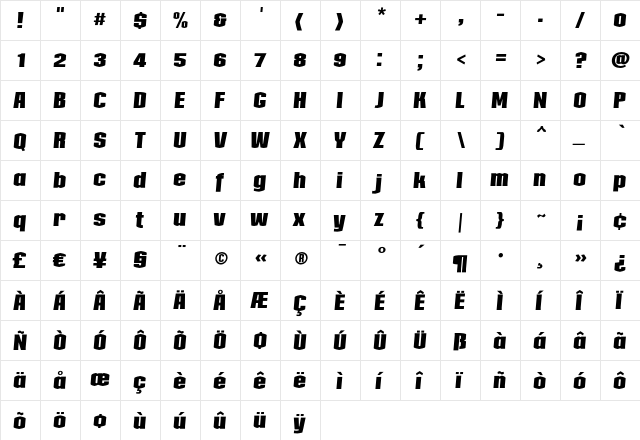
Collos BoldItalic
Design Context for Collos Typeface
Collos is a composed and adaptable typeface that performs quietly and consistently across a wide range of design contexts. The dynamic lean of this cut emphasises speed and emphasis in any layout. The heavy weight commands attention and anchors typographic hierarchies.
Pro Tip: Use Collos for emphasis, pull quotes, and subheadings where its slanted energy can add rhythm to the layout.